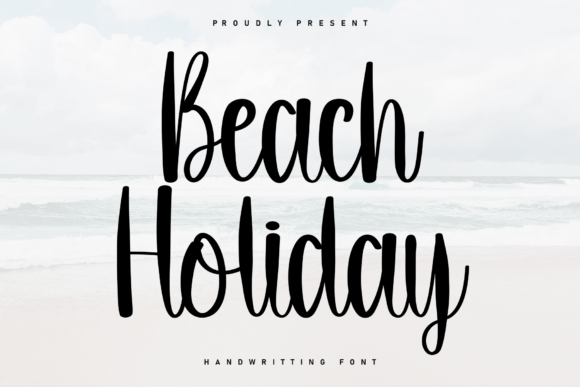
Escaping to a Tropical State of Mind
As I sit on the beach, watching the sun set over the ocean, I feel my creative juices start to flow. The sound of the waves, the smell of saltwater, and the warmth of the sand beneath me all combine to spark a sense of inspiration. It’s moments like these that I crave when I’m stuck on a design project – a chance to break free from the screen and tap into my creative subconscious.
When I’m back at my desk, I reach for a font that captures the essence of those beachy vibes. That’s where Beach Holiday Font comes in – a sweet and beautiful handwritten font that adds a cozy accent to any design project. With its playful, dancing characters, it’s the perfect way to infuse a sense of relaxation and fun into your work.
Beach Holiday Font Key Features
- Font Family: Beach Holiday
- Unique Characteristics: This font features a unique, hand-drawn design with a relaxed, beachy feel, making it perfect for travel and leisure-related projects
Beach Holiday Font Review
Overall, I think Beach Holiday Font has a lot of potential, but it’s not without its flaws. Let’s start with the positives: ✨ The font is perfect for summer-themed designs, like beach vacation posters or tropical travel websites. The playful, handwritten feel of the font adds a sense of fun and relaxation to any project. ✨ The font also includes a wide range of characters, including punctuation marks and numbers, which is a bonus for designers.
However, there are some limitations to consider: ⚠️ The font can be a bit difficult to read at smaller sizes, especially for people with vision impairments. ⚠️ Additionally, the font’s playful feel can sometimes make it feel overly casual or even childish, which may not be suitable for all design projects.
Here are some specific features of the font that I think are worth noting:
- Wide range of characters, including punctuation marks and numbers
- Perfect for summer-themed designs
- Playful, handwritten feel
- Can be a bit difficult to read at smaller sizes
- May feel overly casual or childish for some design projects
Overall, I think Beach Holiday Font is a fun and versatile font that’s perfect for certain types of design projects. However, it’s not a good fit for every project, and designers should be aware of its limitations before using it.
Practical Application Guide for “Beach Holiday Font”
Use the “Beach Holiday Font” to create a fun and playful vibe for your beach-themed projects.
Pair the font with bright and colorful graphics to create a visually appealing design.
Experiment with different font sizes and styles to add emphasis and create visual interest.
Use the “Beach Holiday Font” for beach-themed projects such as:
Posters and flyers for beach events
Beach-themed social media graphics
Alternatives to “Beach Holiday Font” for Designers
Pacifico is a beautiful, modern script font perfect for creating a relaxed and beachy vibe. It’s ideal for branding, advertising, and packaging design. When to use: Travel, food, and lifestyle brands. Comparison: Pacifico has a more elegant and refined feel compared to Beach Holiday Font, which is more playful and casual.
Great Vibes is a fun, handwritten font that’s great for creating a laid-back and carefree atmosphere. It’s suitable for web design, social media, and editorial design. When to use: Fashion, entertainment, and youth-oriented brands. Comparison: Great Vibes is more informal and quirky compared to Beach Holiday Font, which is more polished and refined.
Lato is a clean and modern sans-serif font that’s perfect for creating a beachy feel without being too playful. It’s ideal for corporate branding, advertising, and editorial design. When to use: Travel, hospitality, and corporate brands. Comparison: Lato has a more minimalist and sophisticated feel compared to Beach Holiday Font, which is more decorative and eye-catching.